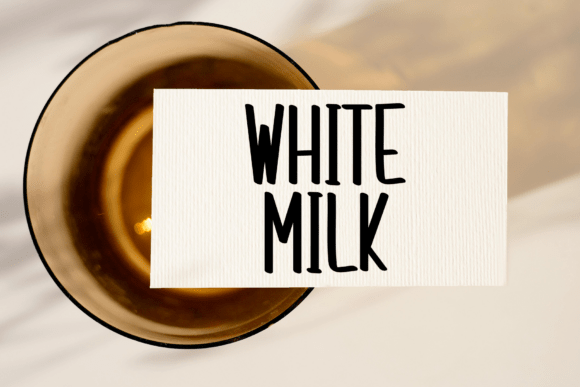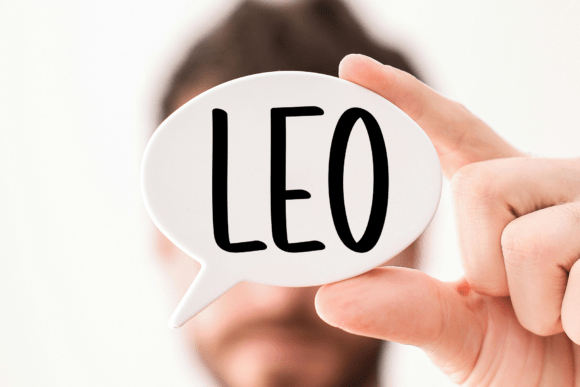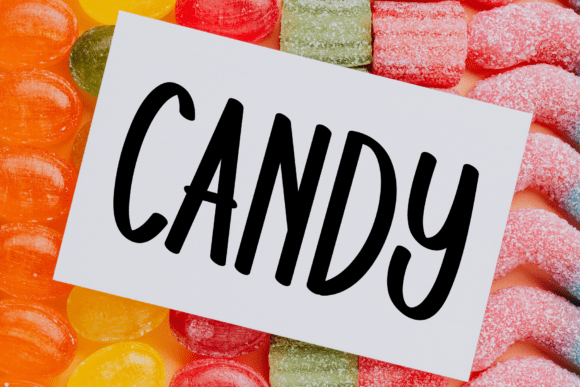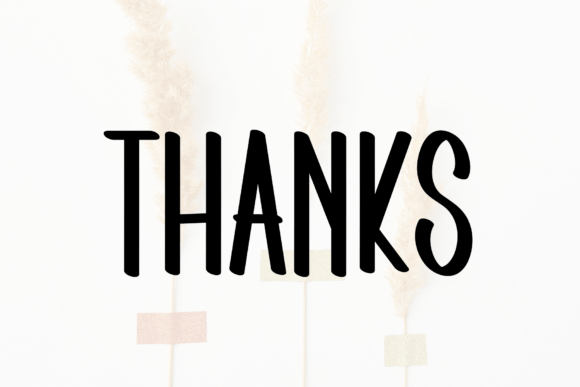
Introducing Harmony Font: The Perfect Blend of Elegance and Casualness
Are you a designer or crafter looking for a font that exudes luxury, elegance, and a touch of casualness? Look no further than Harmony Font, a beautiful handwritten font that is sure to elevate your designs to the next level. In this article, we’ll dive into the world of Harmony Font, exploring its unique features, uses, and benefits.
What is Harmony Font?
Harmony Font is a stunning handwritten font that has the distinct look of being drawn with a marker. Its relaxed and sporty feel makes it an excellent choice for a wide range of design projects, from branding and logos to wedding supplies, greeting cards, and marketing promotions. With Harmony Font, you can add a touch of sophistication and elegance to your designs while still maintaining a casual and approachable vibe.
Key Features of Harmony Font
- Handwritten with a marker feel: Harmony Font has a unique, hand-drawn quality that gives it a personal and human touch.
- Relaxed and sporty feel: This font is perfect for designs that require a laid-back, yet stylish aesthetic.
- Luxurious and elegant: Despite its casual feel, Harmony Font exudes luxury and sophistication, making it ideal for high-end designs.
- Versatile: Use Harmony Font for a variety of design projects, including branding, logos, wedding supplies, greeting cards, fashion, lookbooks, and marketing promotions.
Uses of Harmony Font
Harmony Font is an incredibly versatile font that can be used in a multitude of design projects. Here are some ideas to get you started:
- Branding and logos: Create a lasting impression with a custom logo or brand identity that incorporates Harmony Font.
- Wedding supplies: Add a touch of elegance and sophistication to your wedding designs, including invitations, programs, and stationery.
- Greeting cards: Create beautiful, heartfelt greeting cards for special occasions, such as birthdays, anniversaries, and holidays.
- Fashion and lookbooks: Use Harmony Font to add a stylish and luxurious touch to your fashion designs, lookbooks, and marketing materials.
- Marketing promotions: Elevate your marketing campaigns with Harmony Font, perfect for creating eye-catching ads, flyers, and brochures.
Benefits of Using Harmony Font
So, why choose Harmony Font for your design projects? Here are just a few benefits:
- Unique and eye-catching: Harmony Font is a one-of-a-kind font that will set your designs apart from the crowd.
- Easy to read: Despite its handwritten feel, Harmony Font is clear and easy to read, making it perfect for body text and headings.
- Customizable: Experiment with different colors, sizes, and styles to make Harmony Font your own.
- Time-saving: With Harmony Font, you can create professional-looking designs in no time, saving you hours of design time.
In conclusion, Harmony Font is a stunning handwritten font that offers the perfect blend of elegance, luxury, and casualness. With its unique features, versatility, and ease of use, it’s an excellent choice for designers and crafters looking to elevate their designs. Whether you’re working on a branding project, wedding supplies, or marketing promotions, Harmony Font is sure to impress. So why wait? Give Harmony Font a try today and take your designs to the next level!